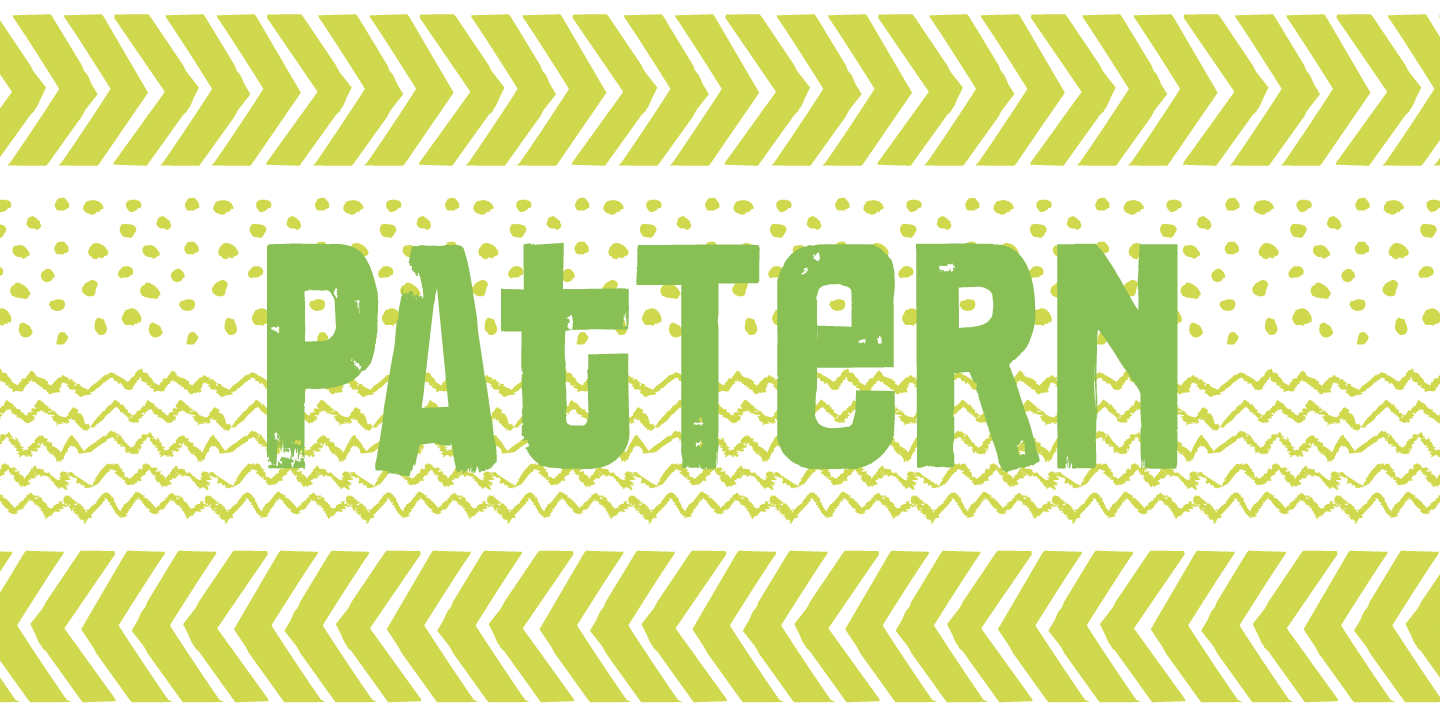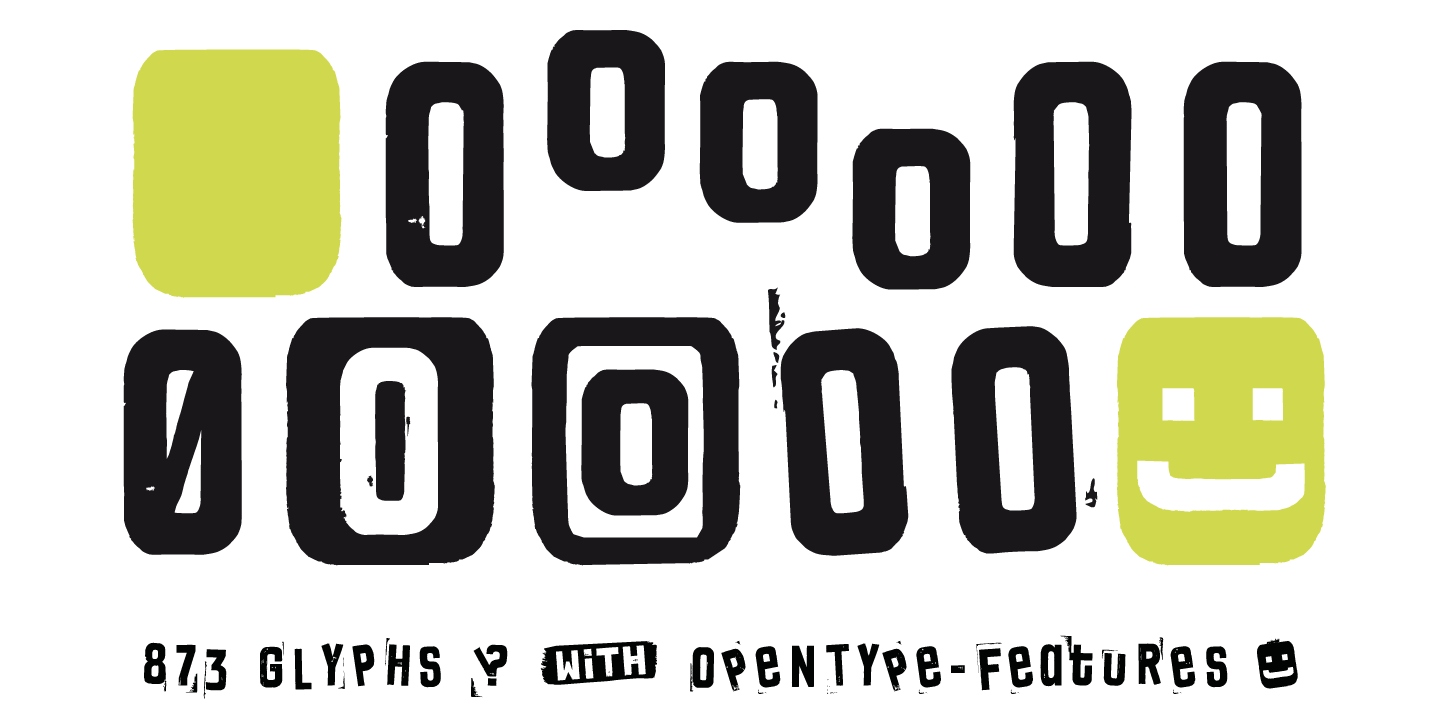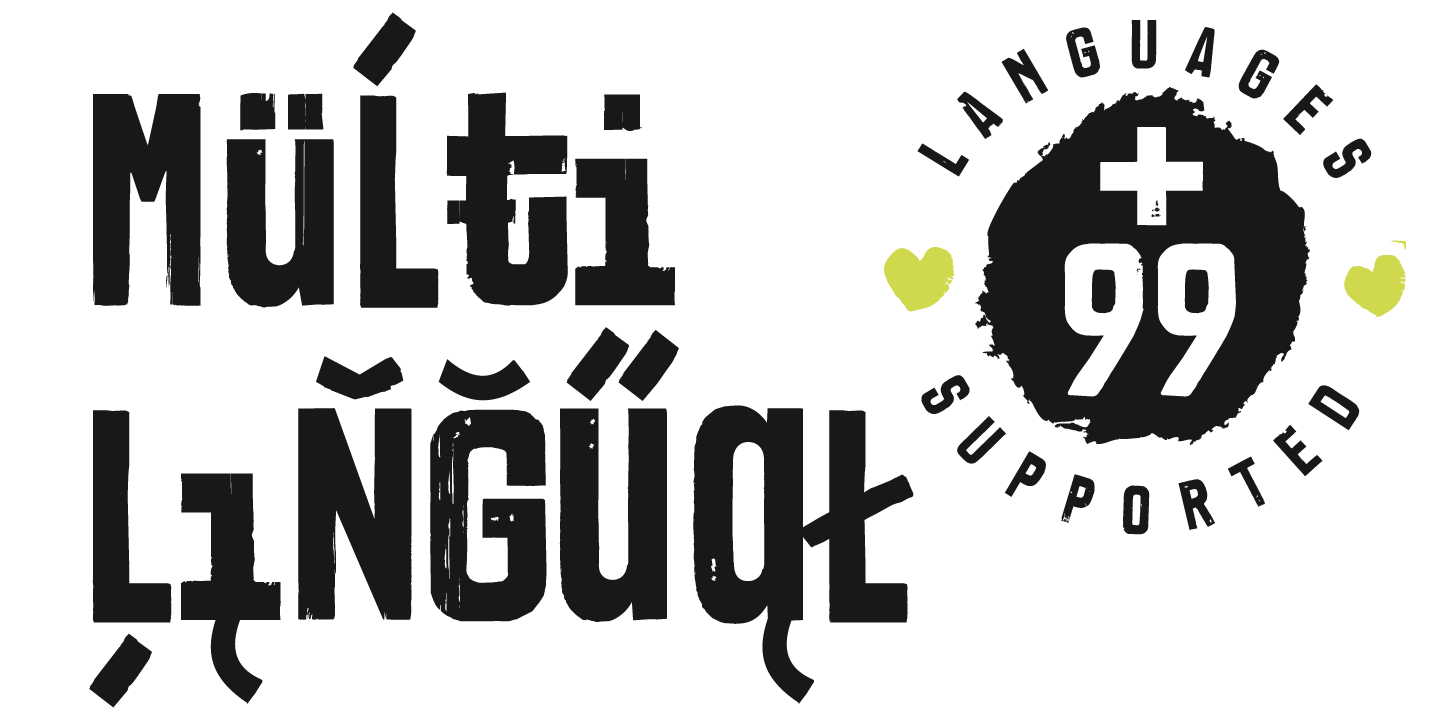
Introduction to Brush Poster Grotesk Extras Font
Enter Brush Poster Grotesk Extras Font, a stunning sans serif display typeface designed in 2017 by xplicit, Berlin. This beautiful font has been extended with a wide range of glyphs and extras by Manuel Viergutz, making it an invaluable resource for designers. With its unique hand-drawn and brush-created style, Brush Poster Grotesk Extras Font is perfect for creating eye-catching logos, posters, and advertisements – or even as a webfont for decorative headlines.
Key Features of Brush Poster Grotesk Extras Font
- Unique blend of brush script and poster grotesk styles, offering a distinctive look for your designs.
- Features a bold, eye-catching design with varying line widths and subtle texture, perfect for adding visual interest to your designs.
Honest Review: Brush Poster Grotesk Extras Font
- Unique blend of brush and grotesk styles, giving it a distinct look that sets it apart from other fonts.
- Highly versatile, suitable for a wide range of design applications, from posters to social media graphics.
- Limited character set, which may be a concern for designers working on longer texts.
- No bold or italic variations, which can limit its use in certain design contexts.
Overall, I’m impressed with the Brush Poster Grotesk Extras Font. Its unique style and high quality make it a valuable addition to any designer’s toolkit. With a little creativity, its limitations can be easily worked around, making it a great choice for designers looking for a free and high-quality font.
The Brush Poster Grotesk Extras Font is ideal for creative projects that require a unique and eye-catching font. Use it for posters, flyers, brochures, and social media graphics. This font is particularly useful for projects that require a transparent background, allowing you to create stunning visuals with ease.